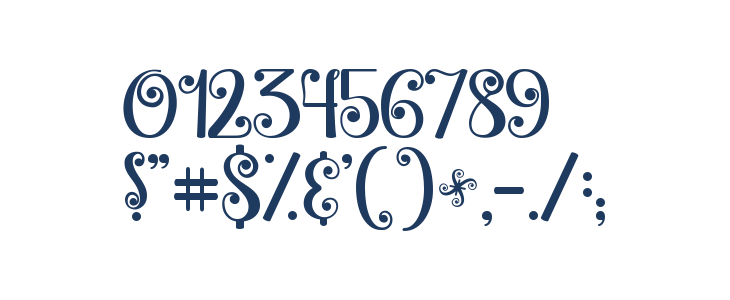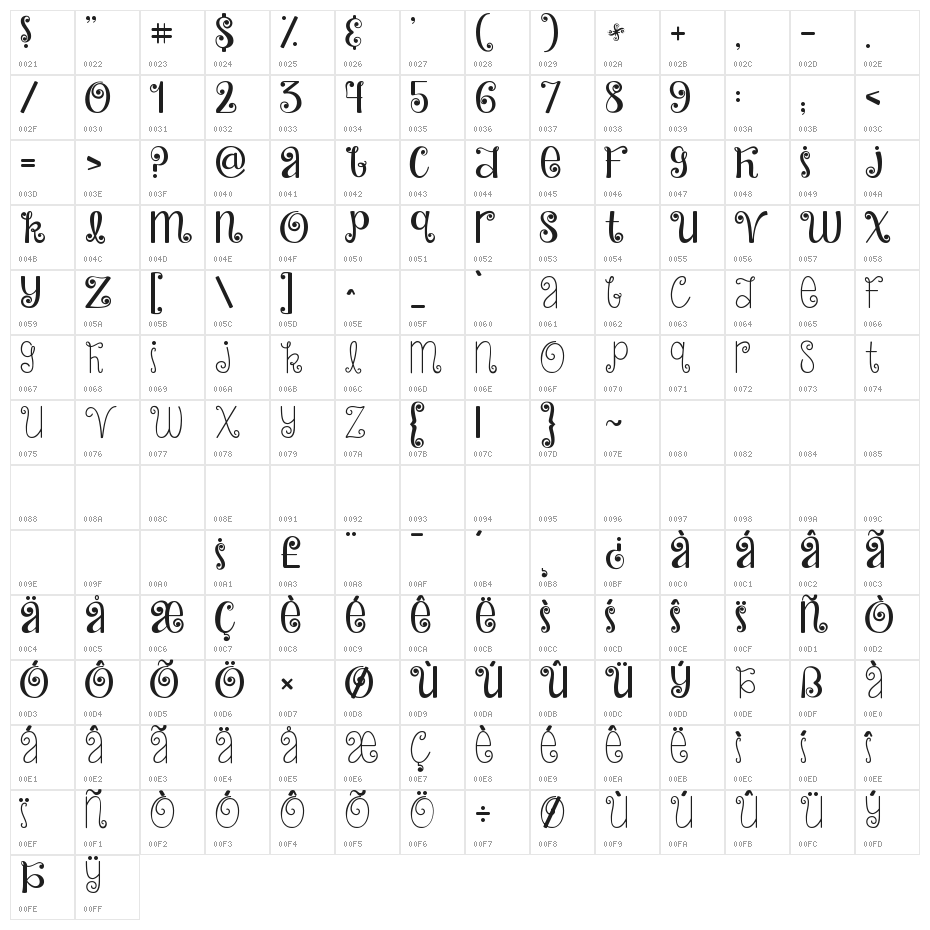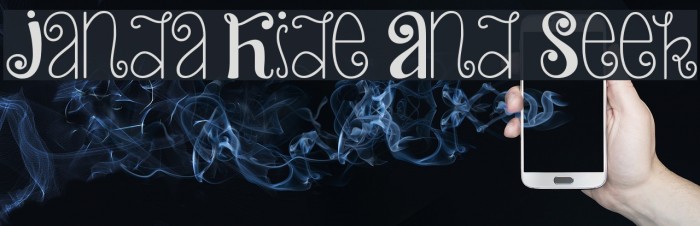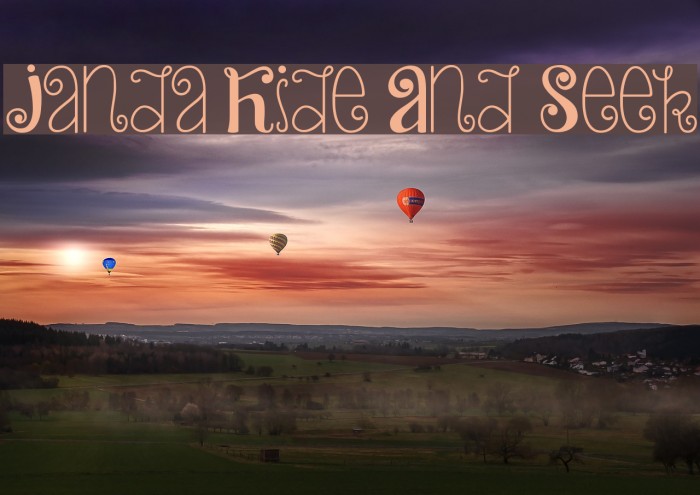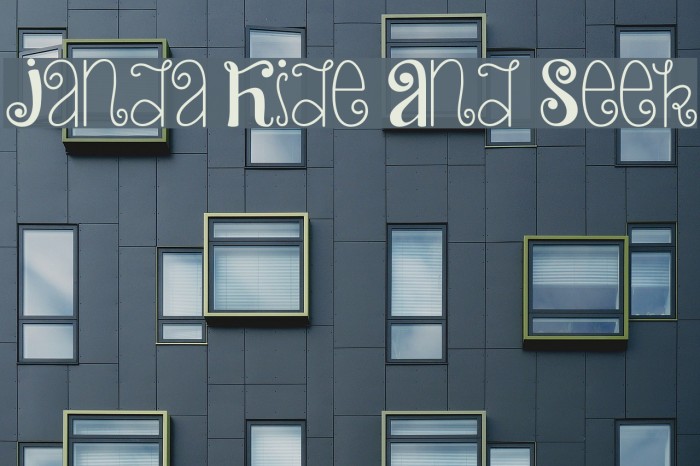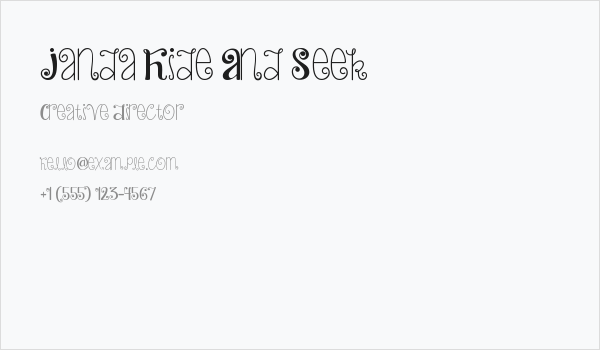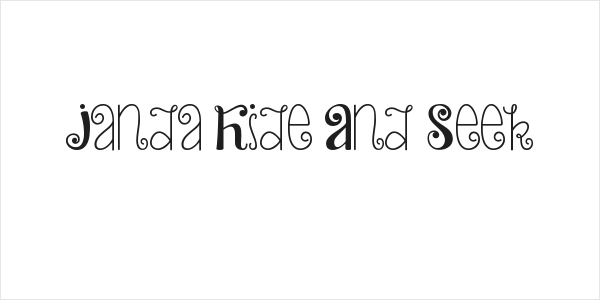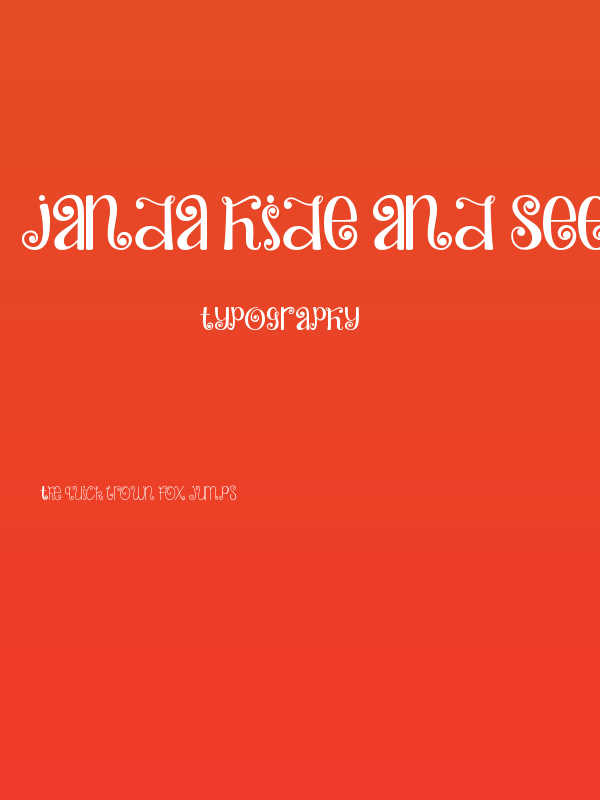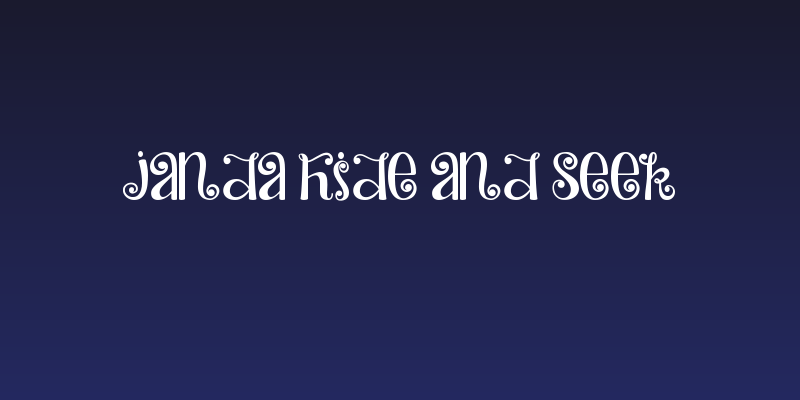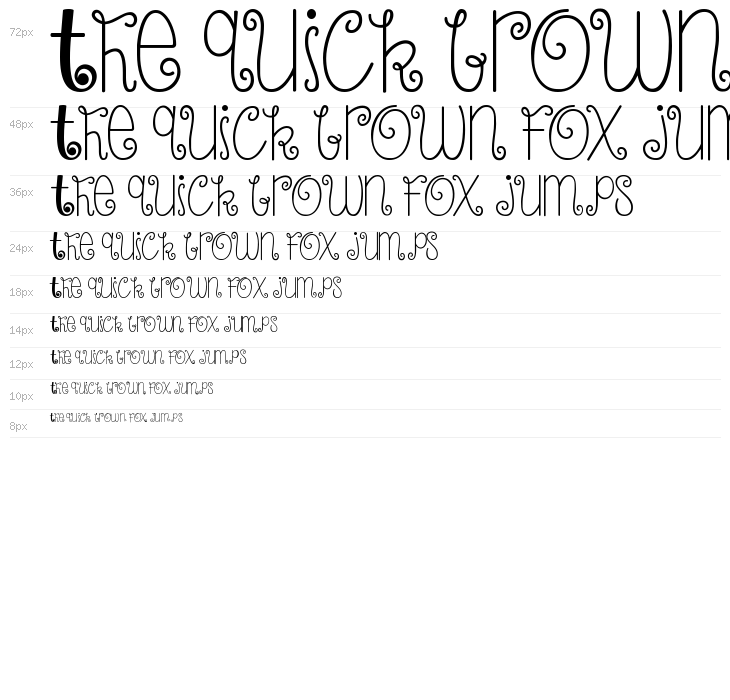
Janda Hide And Seek Font
Janda Hide And Seek Description
This playful and whimsical font features a unique blend of curls and swirls, creating a lively and energetic appearance. The characters are adorned with decorative loops and embellishments, giving them a sense of movement and fun. The uppercase and lowercase letters maintain a consistent style, with each character exhibiting a distinct personality. The numbers and special characters are equally ornate, adding to the font's overall charm. This font is perfect for projects that require a touch of creativity and flair, making it ideal for children's books, playful branding, and festive invitations.
| Overall Style | Playful and Whimsical |
| Proposed Projects | Ideal for children's books, playful branding, festive invitations, and creative designs. |